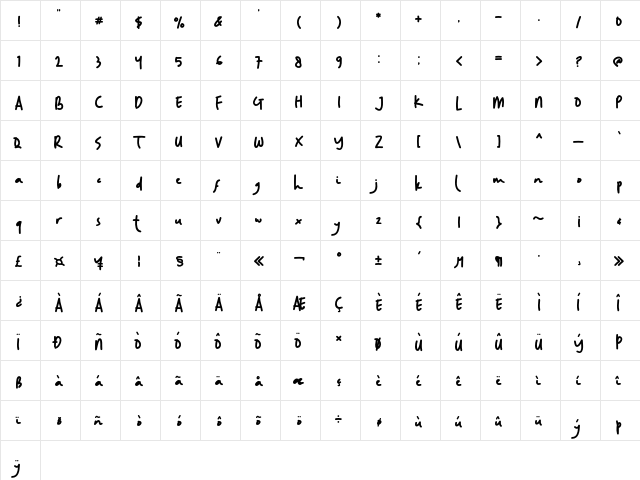
Random Handwritten Regular
Design Context for Random Handwritten Typeface
Random Handwritten flows with the natural rhythm of handwritten lettering, making it ideal for designs that call for warmth and personal expression.
Font Pairing: Combine Random Handwritten with a simple geometric sans for maximum contrast — the tension between flowing curves and clean structure is a classic typographic pairing.
Pro Tip: Use Random Handwritten for short runs of text — names, titles, or taglines. Extended body copy in script faces tires the eye quickly.